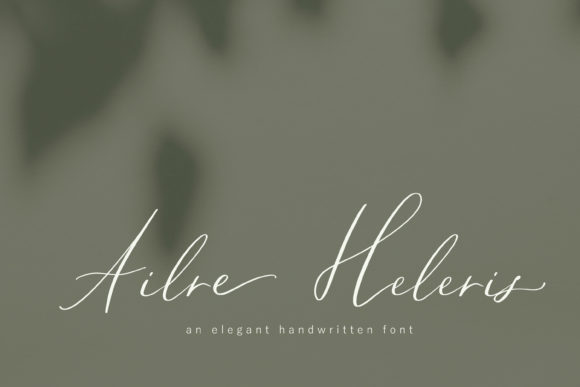
The Elusive Perfect Font: My Encounter with Ailre Heleris
As a designer, I’ve had my fair share of late nights scrolling through font libraries, searching for that one perfect script to bring a project to life. I recall working on a wedding invitation design, determined to capture the couple’s elegant yet playful personalities. The challenge? Finding a font that exuded sophistication without feeling too formal. That’s when I stumbled upon Ailre Heleris, an elegant script font that has since become a staple in my design toolkit.
A Honest Review of Ailre Heleris
- ✨ Elegant yet approachable: Ailre Heleris strikes a beautiful balance between elegance and friendliness, making it perfect for projects that require a touch of sophistication.
- ✅ Natural flow: The font’s handwritten style flows freely, mimicking the organic feel of handwriting.
- 💫 Versatility: Whether you’re working on wedding invitations, branding, or packaging, Ailre Heleris adapts seamlessly to various design projects.
While Ailre Heleris is a stunning font, it’s not without its quirks. For instance, ⚠️ some letters may appear a tad too connected for certain design applications, requiring manual adjustment for optimal spacing. Additionally, 🤔 the font’s extensive features might require a bit of exploration to fully master.
A Practical Guide to Using Ailre Heleris
The Story Behind Ailre Heleris
While the exact origins of Ailre Heleris might be shrouded in mystery, it’s clear that its creation was inspired by a passion for elegant typography. The font’s design reflects a deep understanding of what makes a script truly memorable—its natural flow, elegant lines, and the ability to evoke emotion.
| Author | Primafox Design |
Q: What makes Ailre Heleris unique?
A: Ailre Heleris stands out due to its elegant yet natural handwritten style, making it perfect for designs that require a personal touch.
Q: Does Ailre Heleris support OpenType features?
A: Yes, Ailre Heleris supports OpenType features, allowing for a range of stylistic alternates and glyphs to enhance your designs.
Q: Is Ailre Heleris suitable for body text?
A: While Ailre Heleris is stunning as a display font, its readability for body text may vary depending on the size and context. It’s best used for headings or short paragraphs where its elegance can shine.